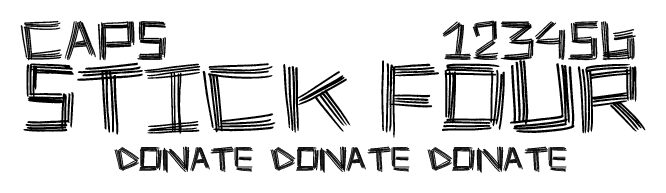
Stick Four by Max Infeld of Xerographer.com is a free, wiry graffiti font. The doubled and tripled strokes give each angular letter the look of a hurried marker sketch, with narrow shapes, abrupt joins, and a restless overall texture.
For music posters and streetwear graphics, that raw construction suggests improvised lettering copied from a notebook or wall. It also fits comic covers and youth event flyers, where repeated marks can echo rough borders, doodles, and energetic illustration. There, the alphabet becomes part of the artwork, closer to a hand-drawn sign than neutral type.
STICK FOUR!
Stick Four is simple caps and numbs